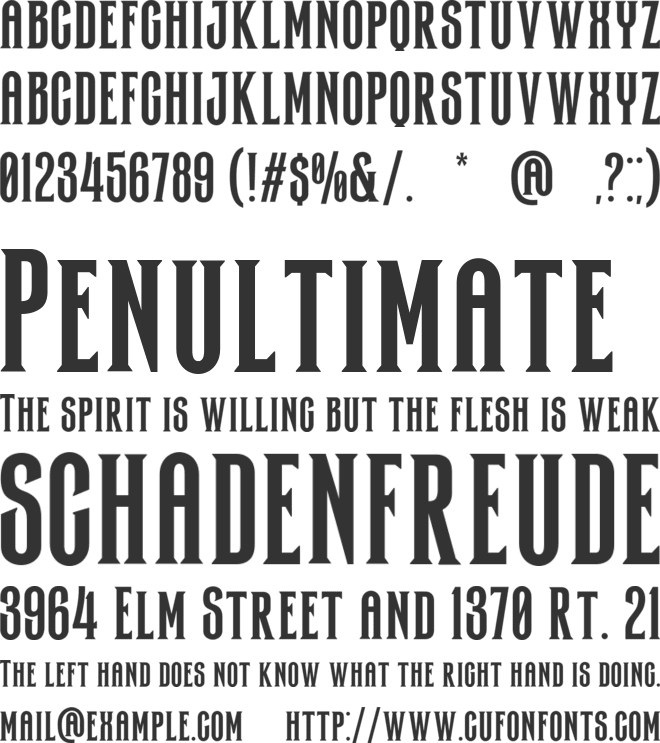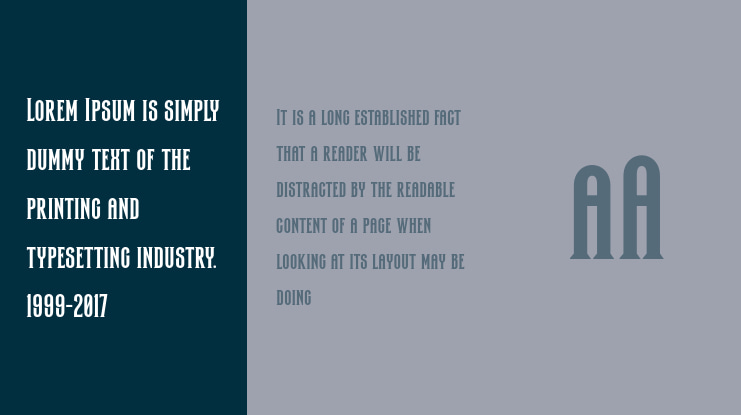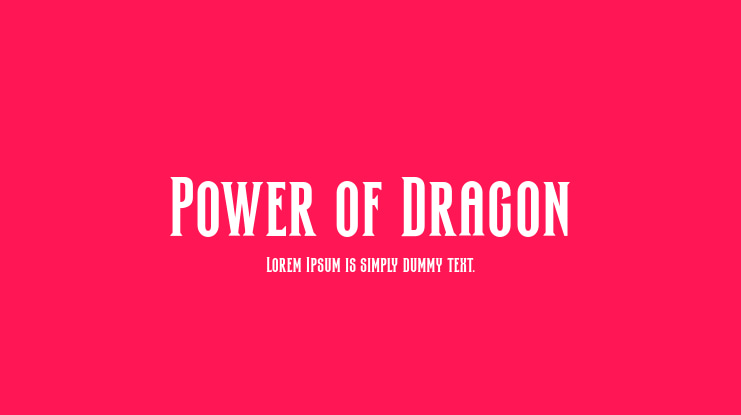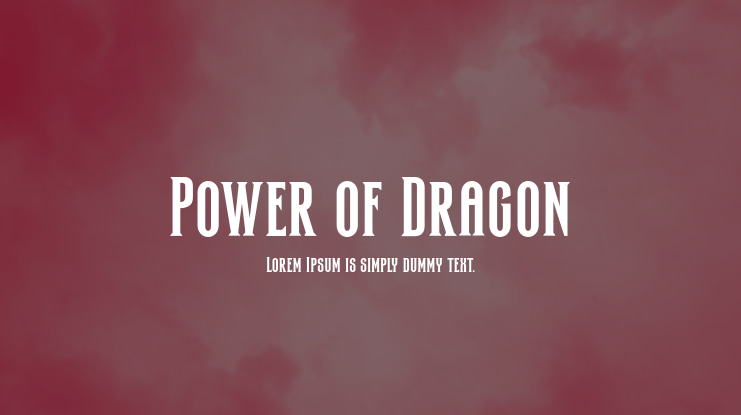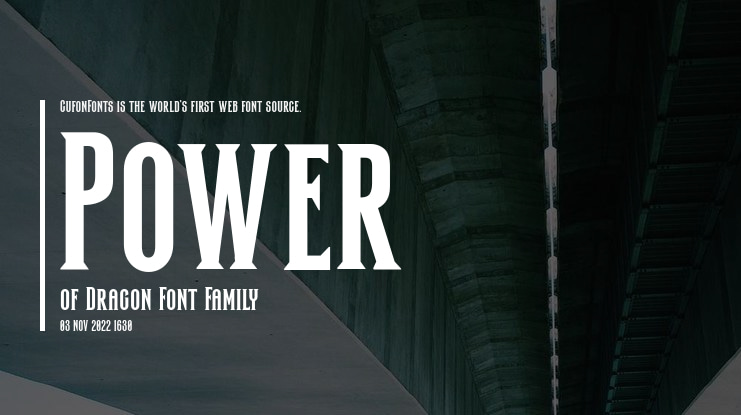
Power of Dragon Font
Kana Widana
For those who dream of becoming legendary, immerse yourself in the world of super hero anime with this extraordinary typeface that combines power, elegance, and a touch of fantasy.